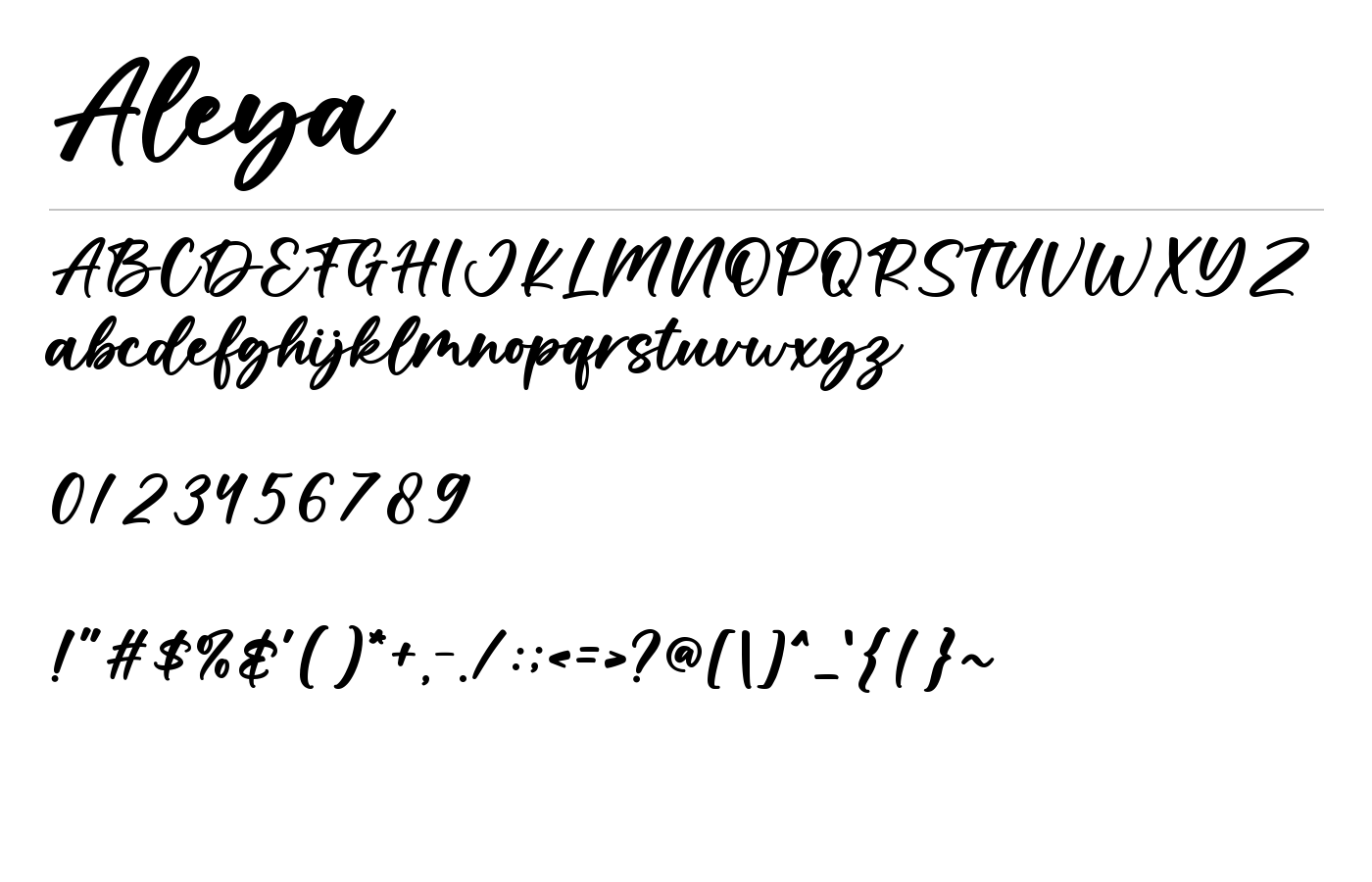
Aleya is a lively and elegant script font with a smooth, flowing style that mimics natural handwriting. Its medium weight and balanced letterforms make it perfect for adding a personal, creative touch to invitations, branding, and stylish headlines, while maintaining easy readability. This font brings a warm, approachable feel that suits fashion, lifestyle, and artistic projects beautifully.
Aleya Font
About Aleya Font